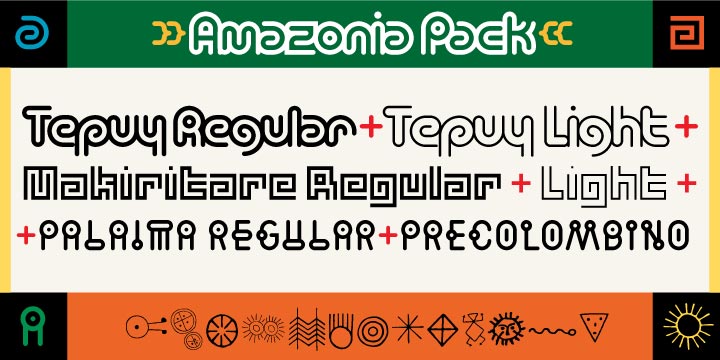
Palaima
Designed by: John Moore
Designed when: 2008
Palaima
Amazonian pack is an incredible set of exotic sources; Makiritare is inspired by the craftsmanship of an ethnic baskets. Tepuy is a round font created to compose a new form and as the Makiritare comes in two weights Light and Regular. Palaima is a fonts with unusual architectural round strokes. To complete the set you found a pictorial font, Precolumbino, that contains an interesting collection of pre-Columbian petroglyphs from the jungle in the Amazon.